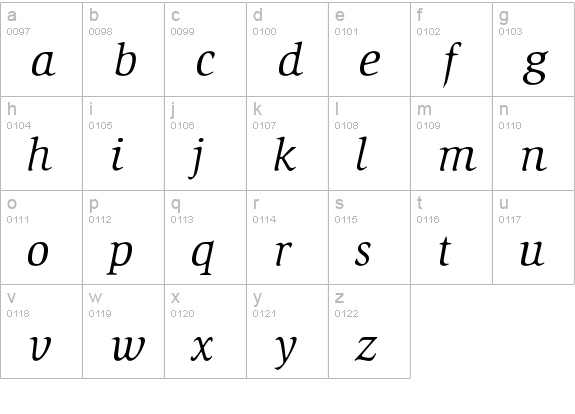
SlimbachBookItalic Font Details
SlimbachBookItalic is a stylish and versatile font that adds a touch of elegance and sophistication to any project. With its sleek and slender letterforms, this font exudes a sense of refined beauty and timeless charm. Designed by renowned typographer Robert Slimbach, SlimbachBookItalic strikes the perfect balance between legibility and artistic flair. The slanted and italicized letterforms create a sense of movement and grace, making it perfect for adding emphasis or creating eye-catching headlines. Whether used for print or digital designs, SlimbachBookItalic is a font that effortlessly captures attention and adds a touch of sophistication to any project. Its versatility allows it to be used in a variety of contexts, from formal invitations and corporate branding to editorial layouts and website designs. And the best part? SlimbachBookItalic is available for free download at FontsMarket.com. Yes, you heard that right - this stunning font can be yours without any cost. Simply head over to FontsMarket.com and unlock the beauty and elegance of SlimbachBookItalic with just a few clicks. So, why wait? Enhance your designs with the timeless beauty of SlimbachBookItalic and make a lasting impression. Download it for free today at FontsMarket.com and let your creativity soar.